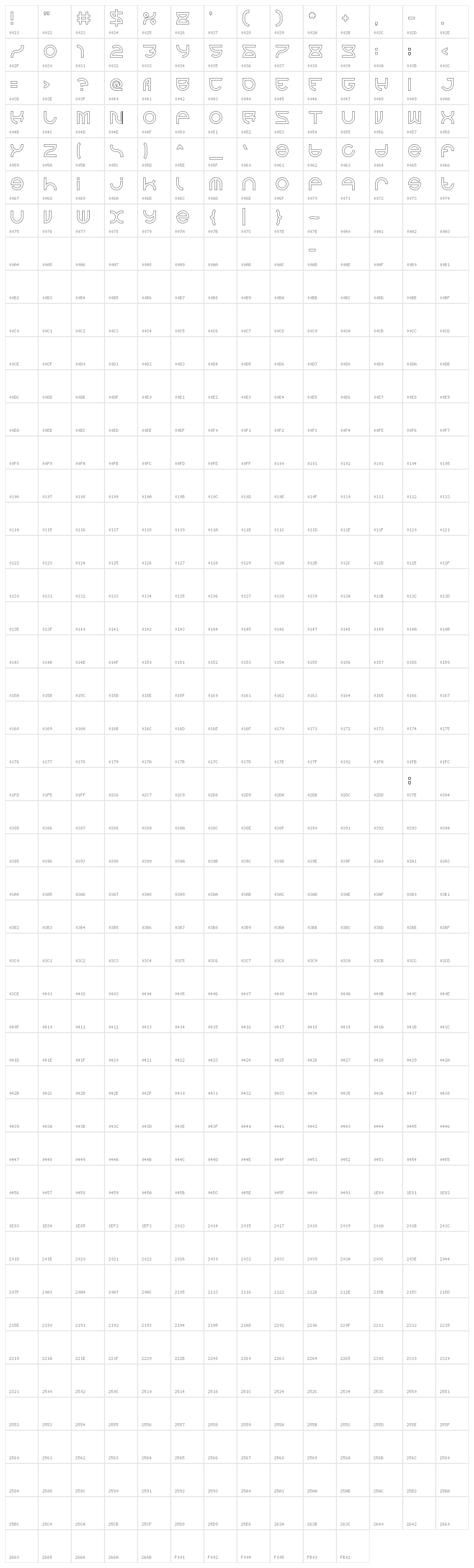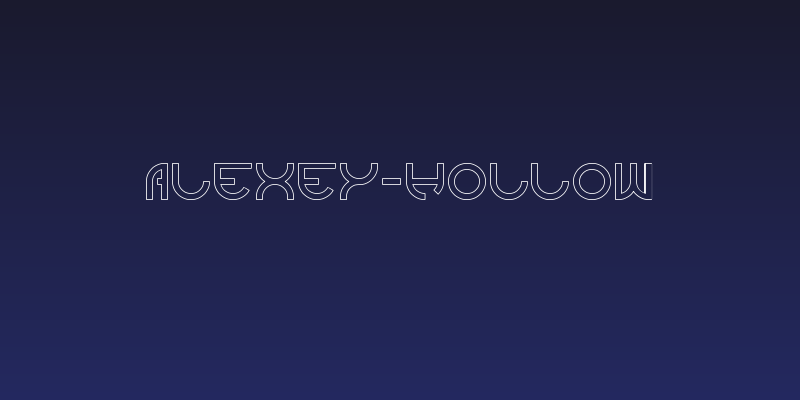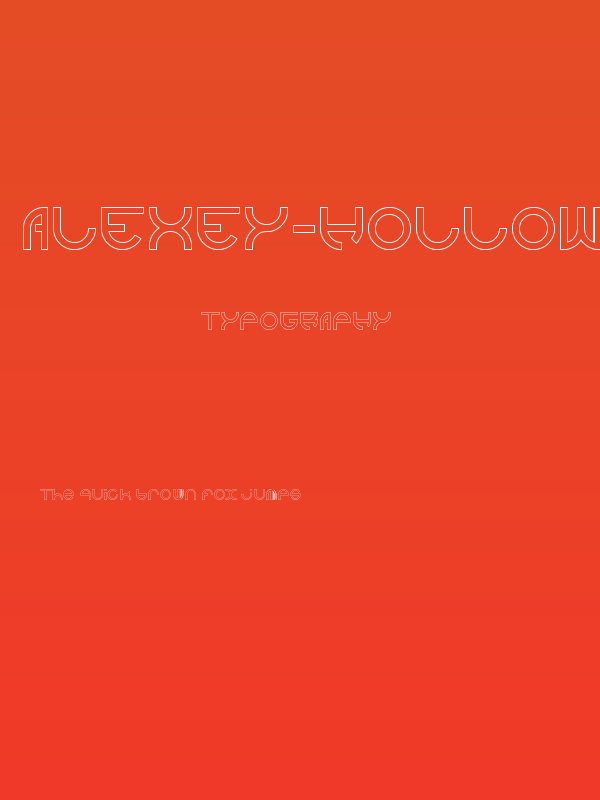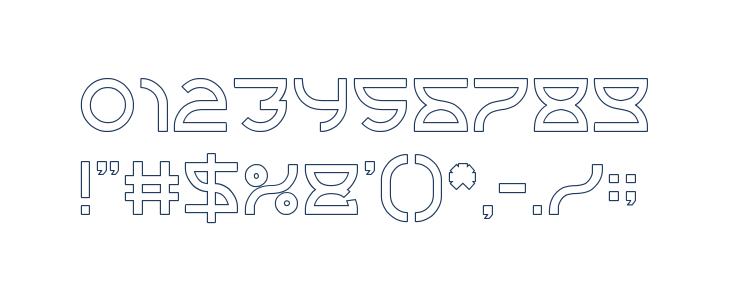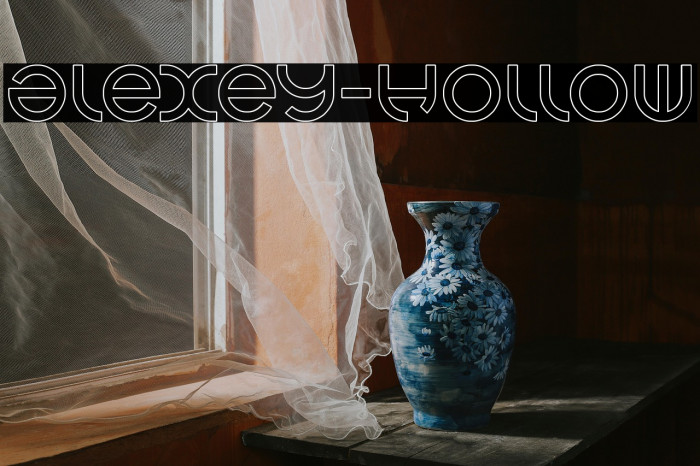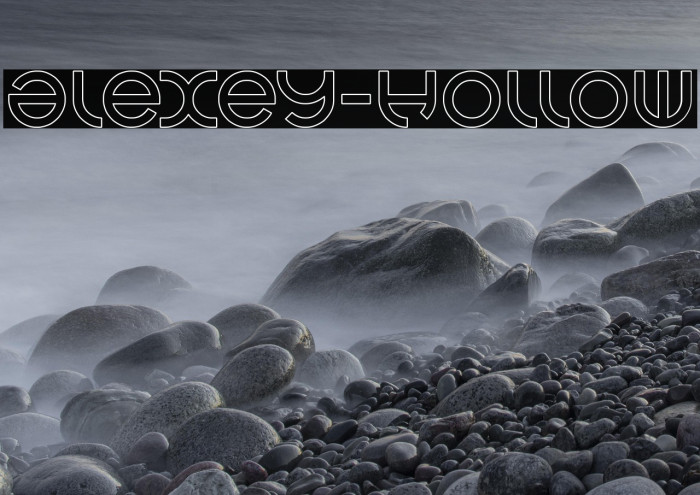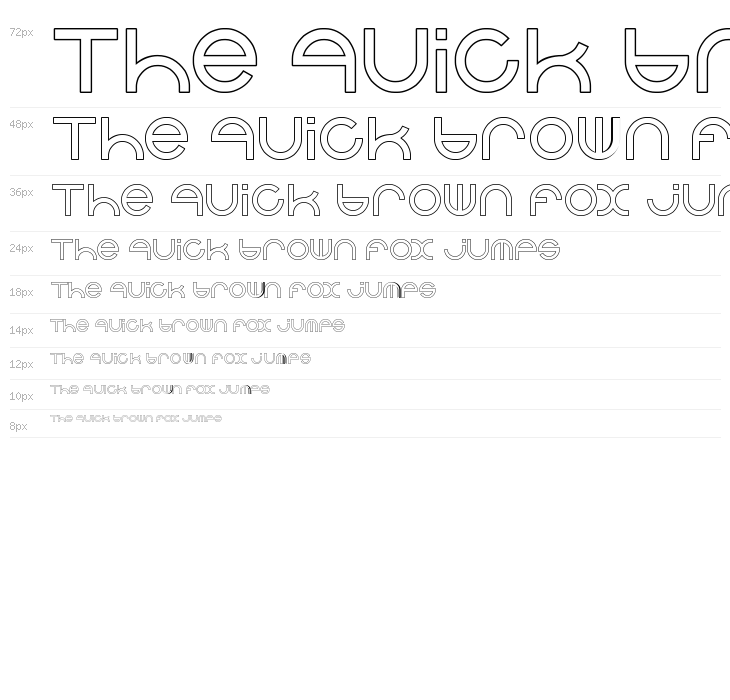
alexey-Hollow Font
This font features a unique hollow design with a futuristic and geometric aesthetic. Each character is outlined, creating a sense of openness and space within the letters. The uppercase and lowercase letters maintain a consistent style, with rounded edges and a modern flair. The numerals and special characters follow the same design principles, ensuring uniformity across all glyphs. This font is ideal for projects that require a modern and innovative look, such as technology branding or sci-fi themed designs. Its distinct appearance makes it stand out, while the hollow nature allows for creative use of background colors or textures.
| Proposed Projects | Ideal for technology branding, sci-fi themed designs, and innovative marketing materials. |